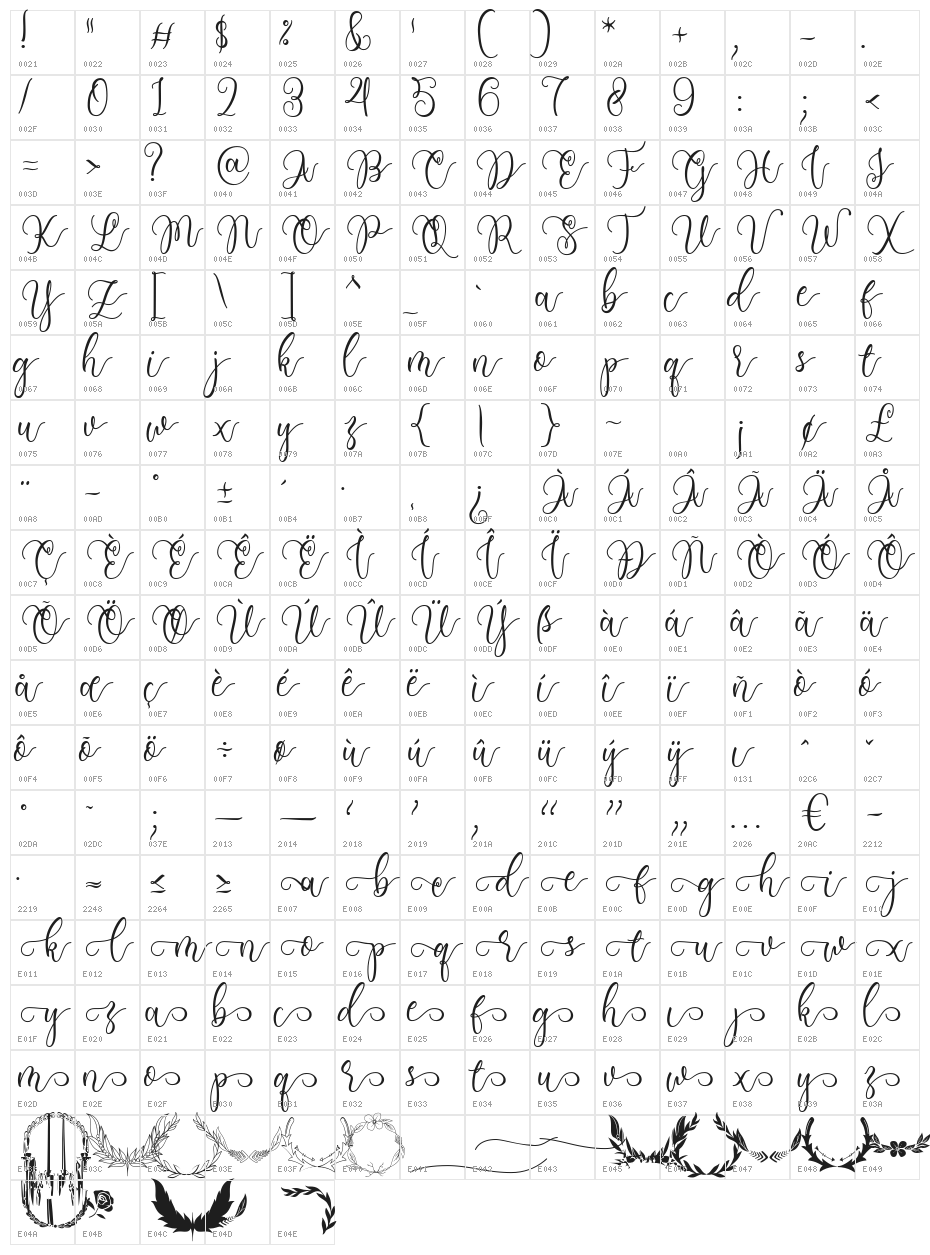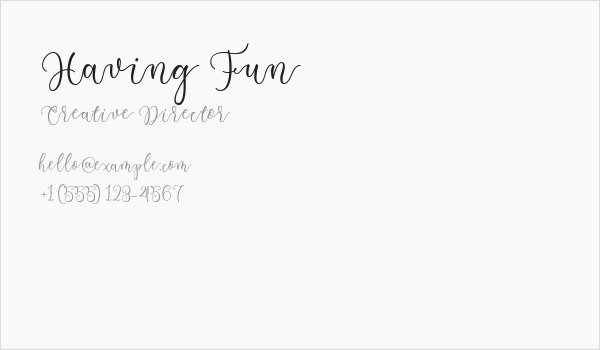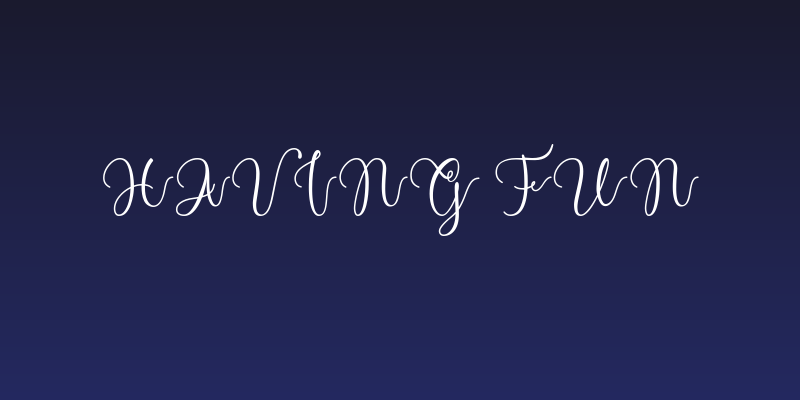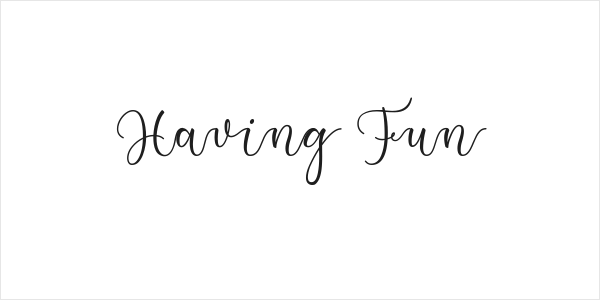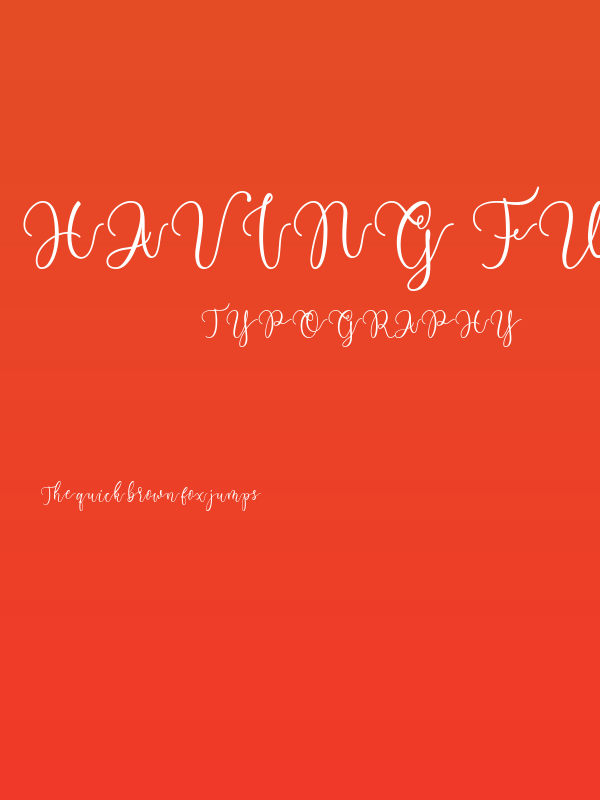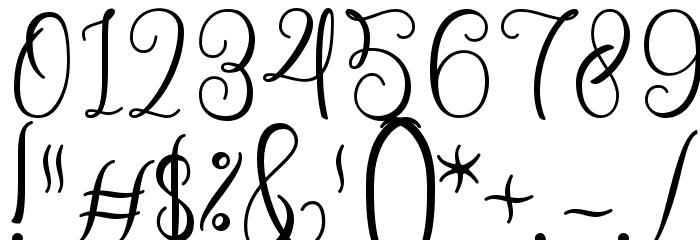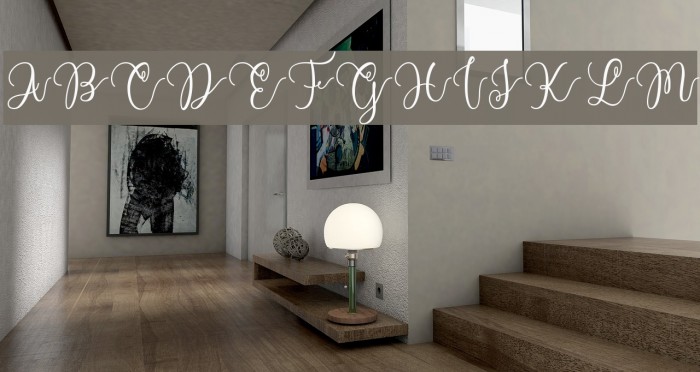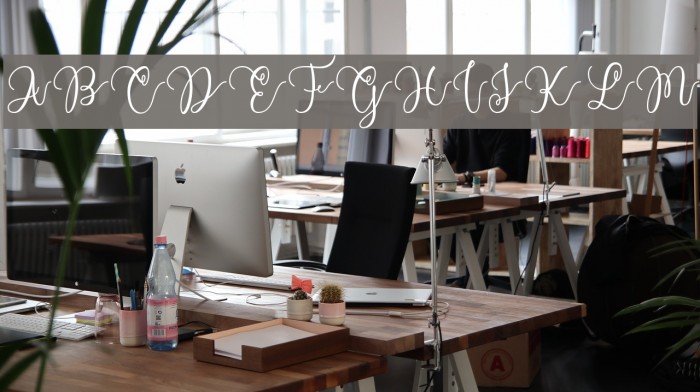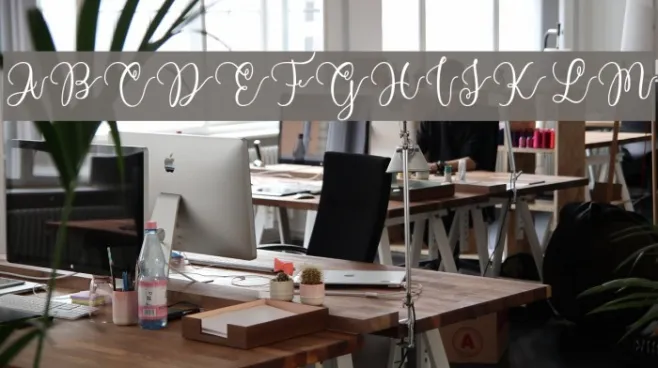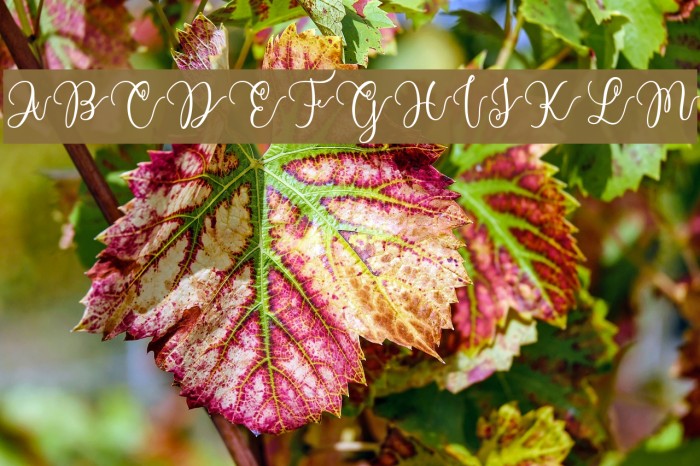
Having Fun Font
Having Fun Description
This font features a playful and elegant script style, characterized by its flowing, interconnected letters. The uppercase letters are ornate, with intricate loops and swirls, while the lowercase letters maintain a more casual, yet cohesive appearance. The numbers and special characters follow the same whimsical style, adding a touch of sophistication and charm. The overall design is reminiscent of hand-lettered calligraphy, making it ideal for projects that require a personal and artistic touch.
| Proposed Projects | Ideal for wedding invitations, greeting cards, branding, and decorative signage. |